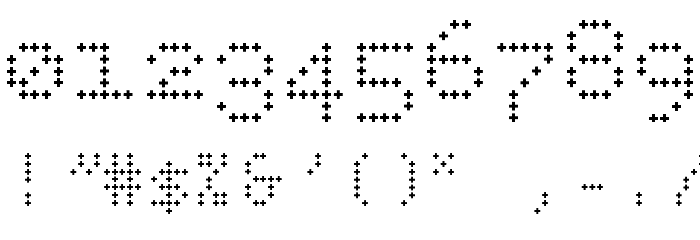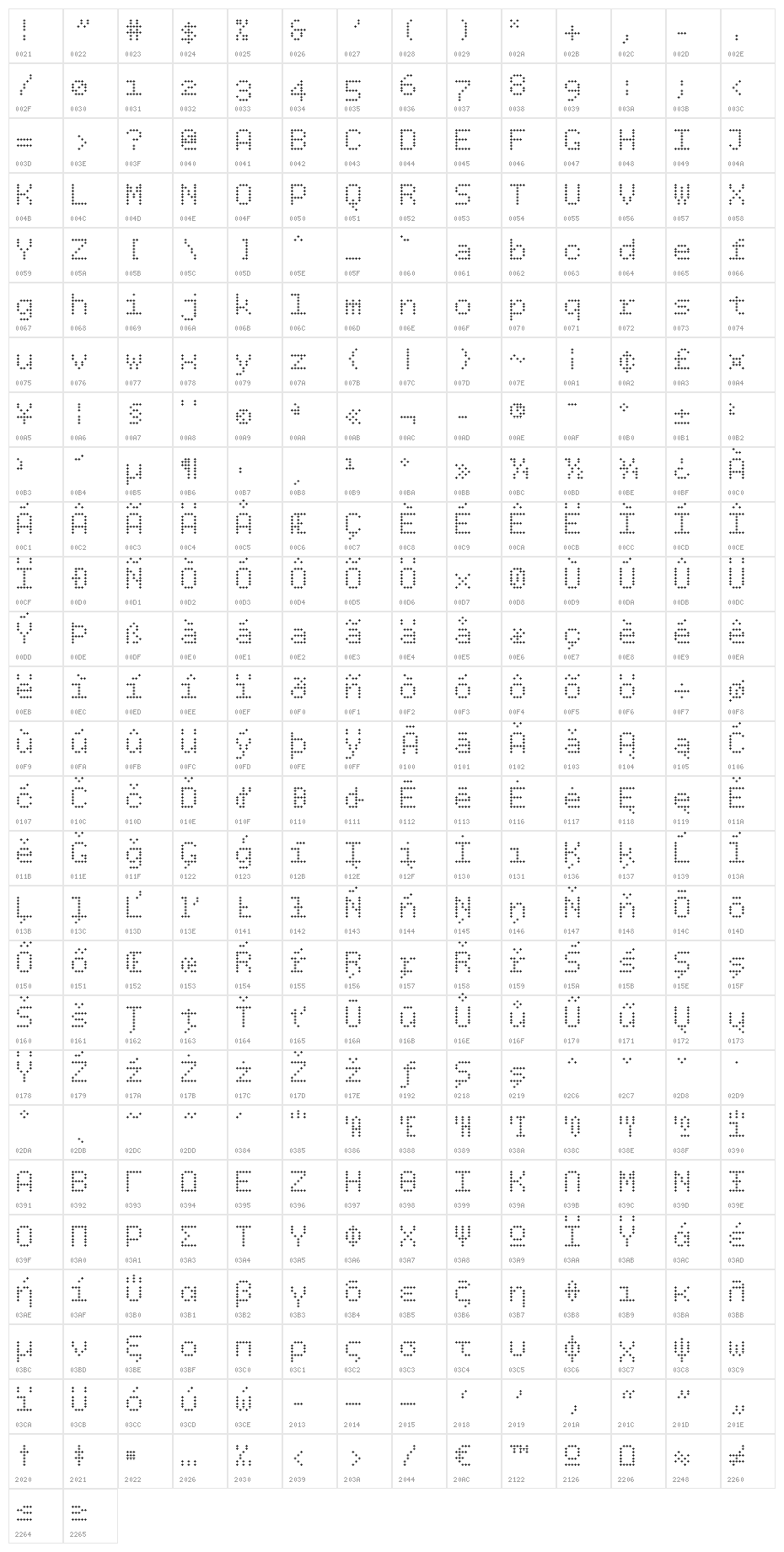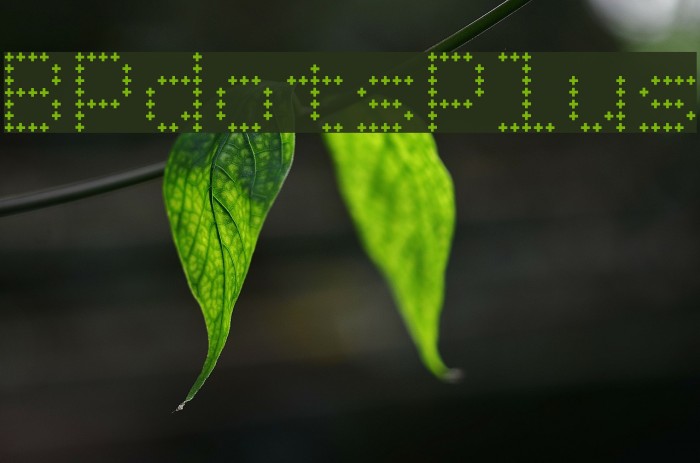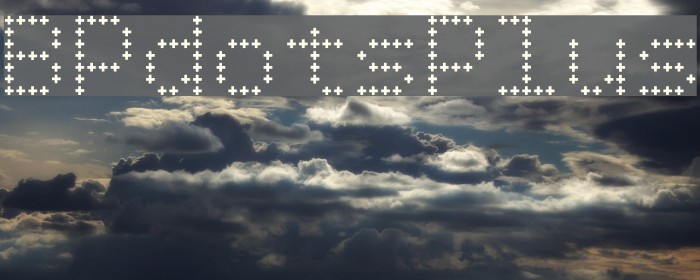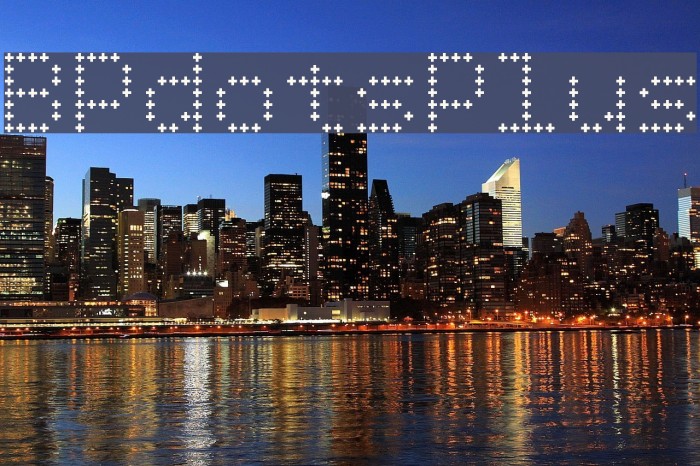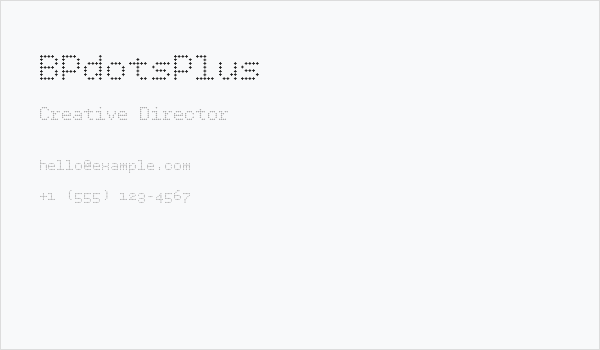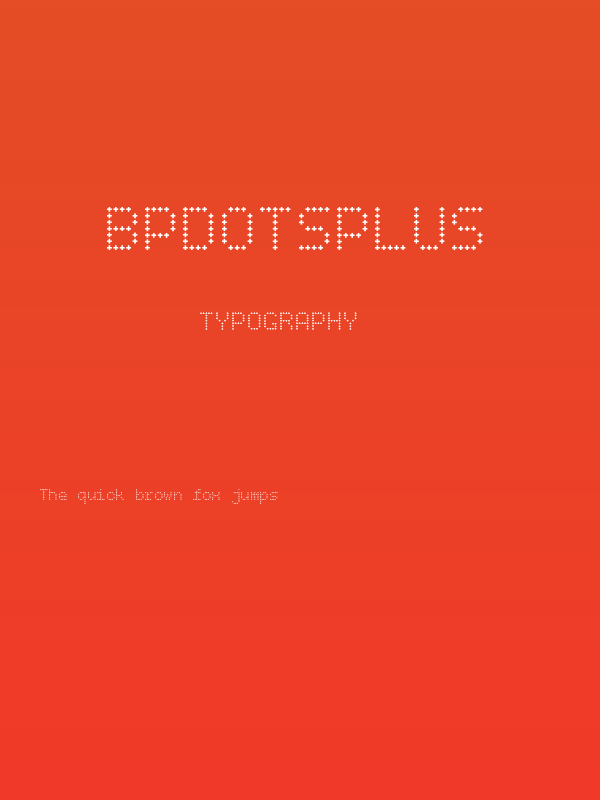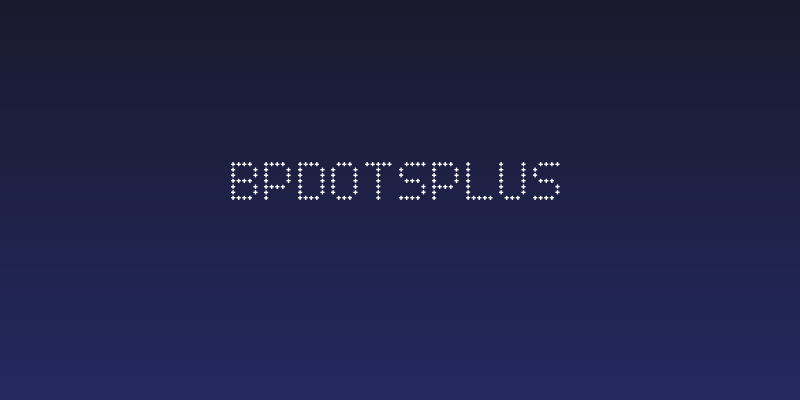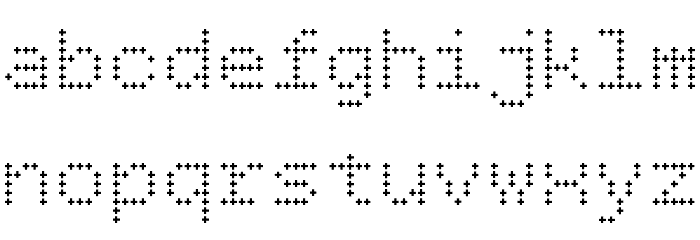
BPdotsPlus Font
BPdotsPlus Description
This font features a unique dotted design where each character is composed of small, evenly spaced dots. The style is geometric and structured, giving it a digital or pixelated appearance. The uppercase and lowercase letters maintain consistent spacing and alignment, creating a cohesive look. Numbers and special characters follow the same dotted pattern, ensuring uniformity across all glyphs. The font's playful yet precise nature makes it suitable for modern and tech-oriented designs.
| Use Case | Logos, Headlines, Digital displays |
| Proposed Projects | Ideal for digital art, tech-themed projects, modern posters, and creative branding. |